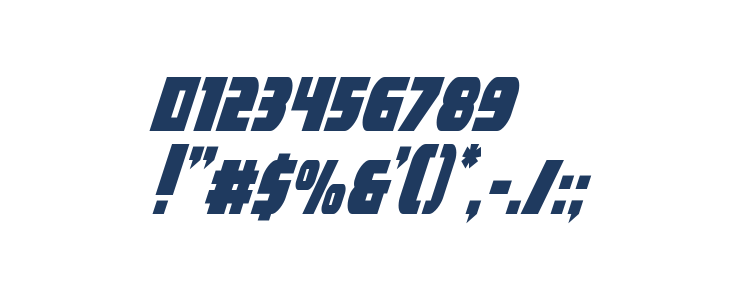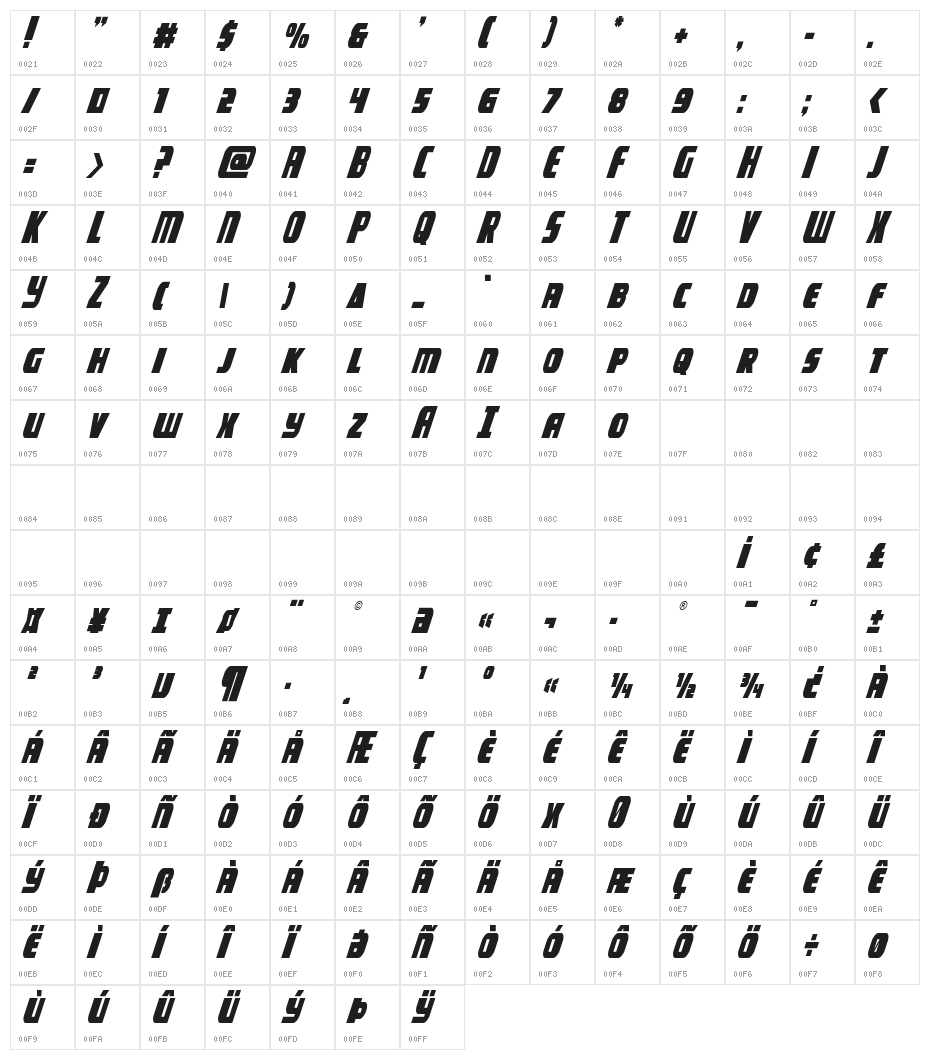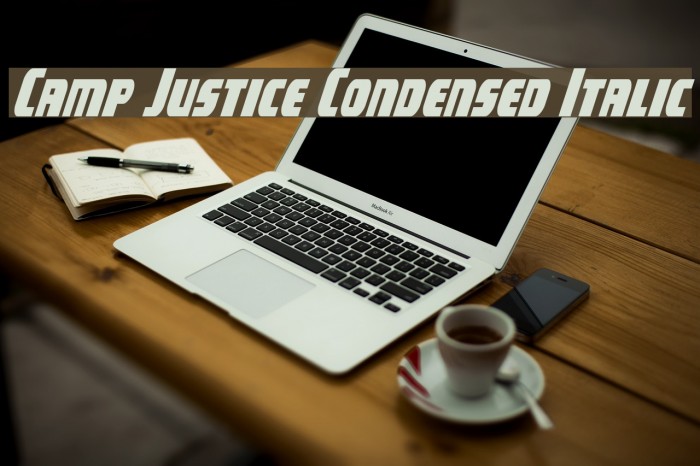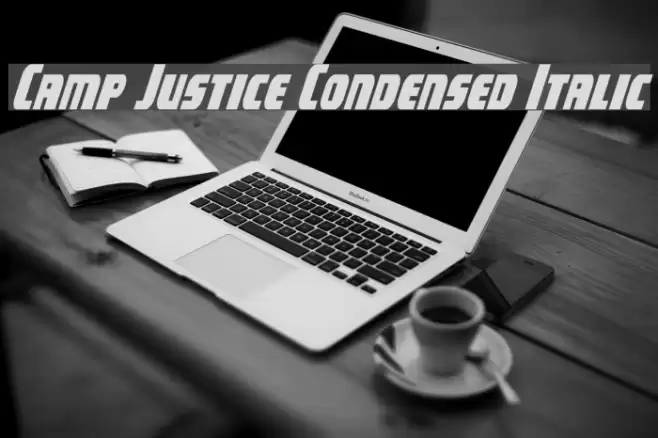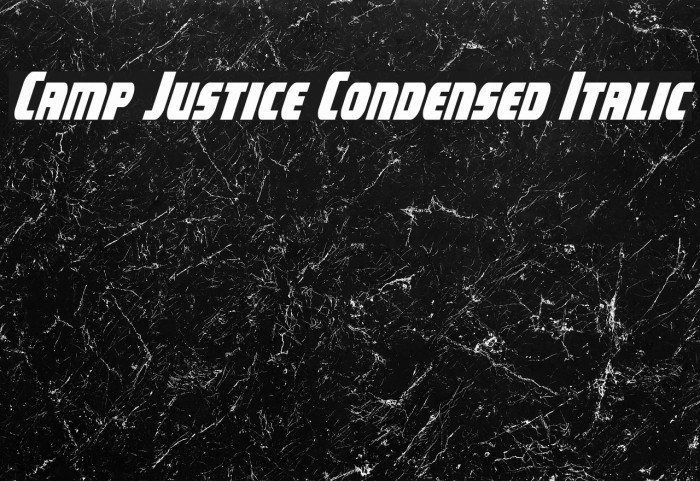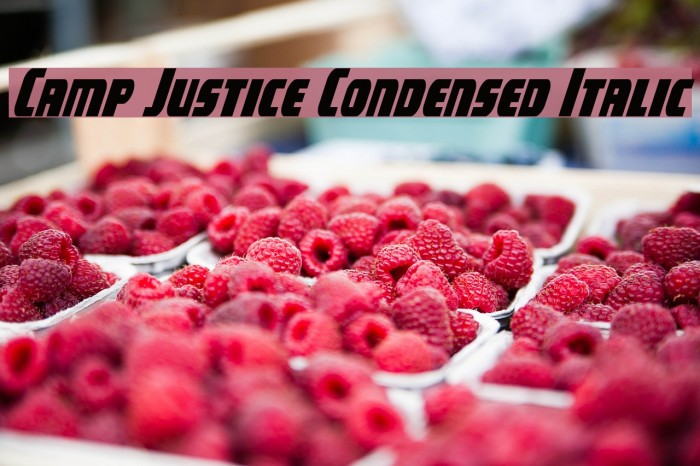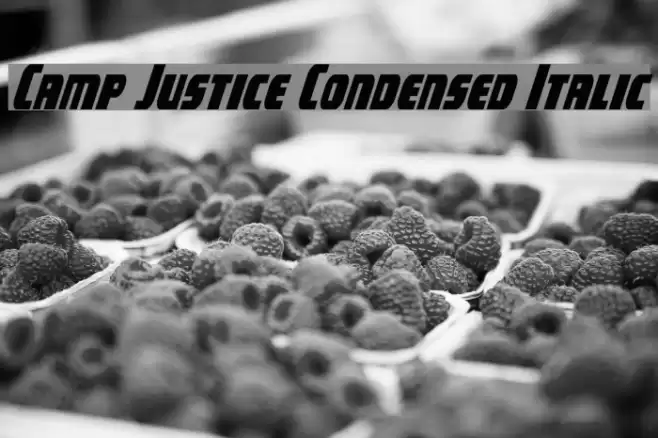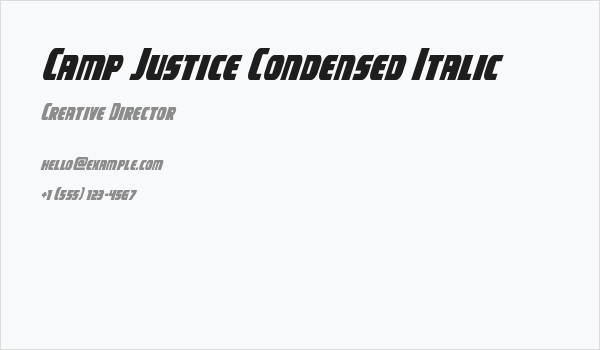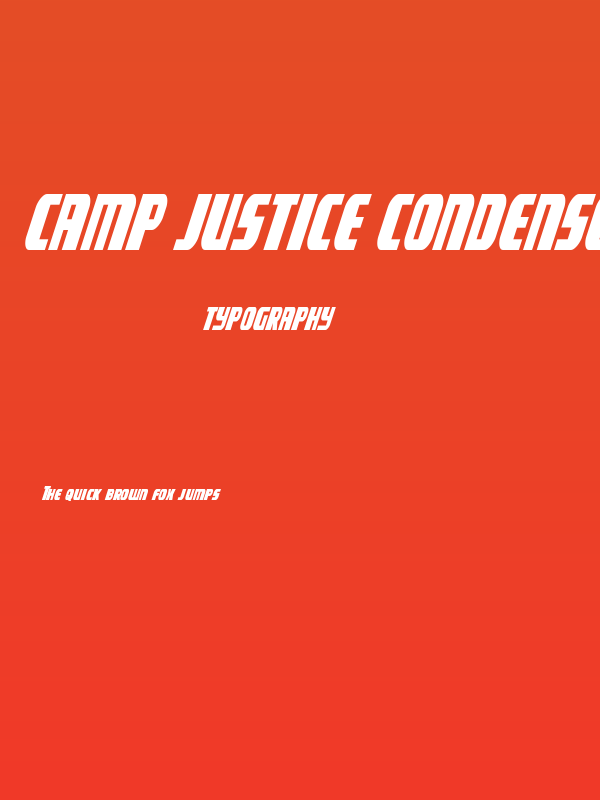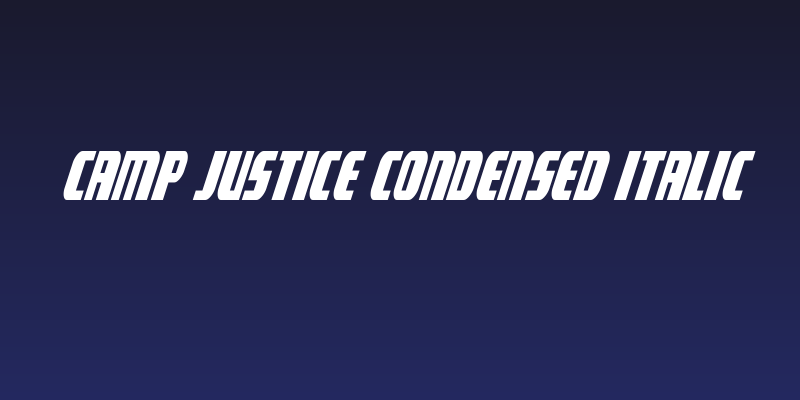
Camp Justice Condensed Italic Font
Camp Justice Condensed Italic Description
This font features a bold, condensed style with a distinct italic slant, giving it a dynamic and energetic appearance. The characters are tightly spaced, enhancing its compact look. The strokes are thick and consistent, providing a strong visual impact. The angular design of the letters adds a modern and edgy feel, making it suitable for attention-grabbing headlines and titles. The numbers and special characters maintain the same bold and italicized characteristics, ensuring uniformity across all glyphs.